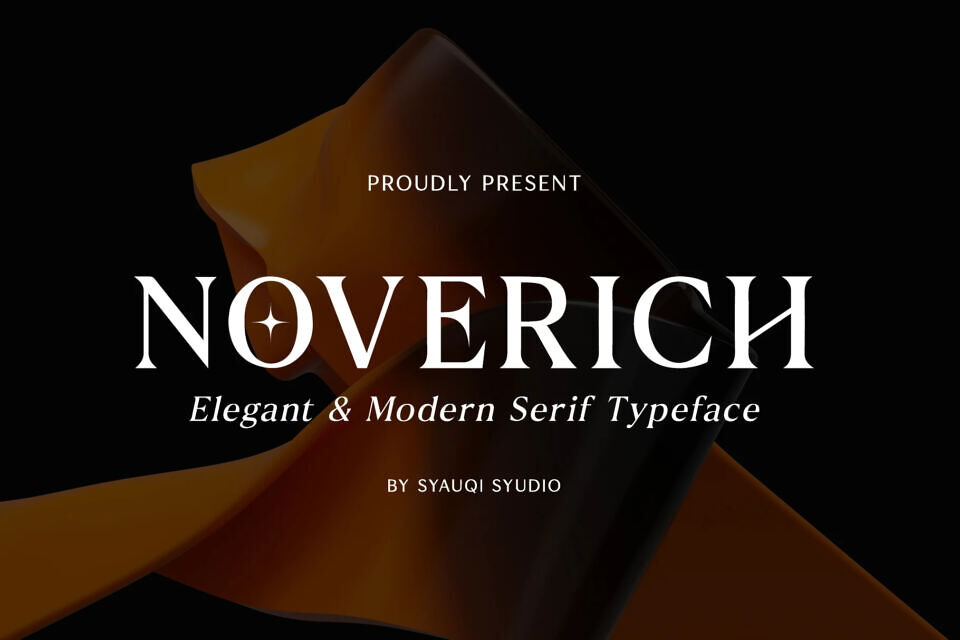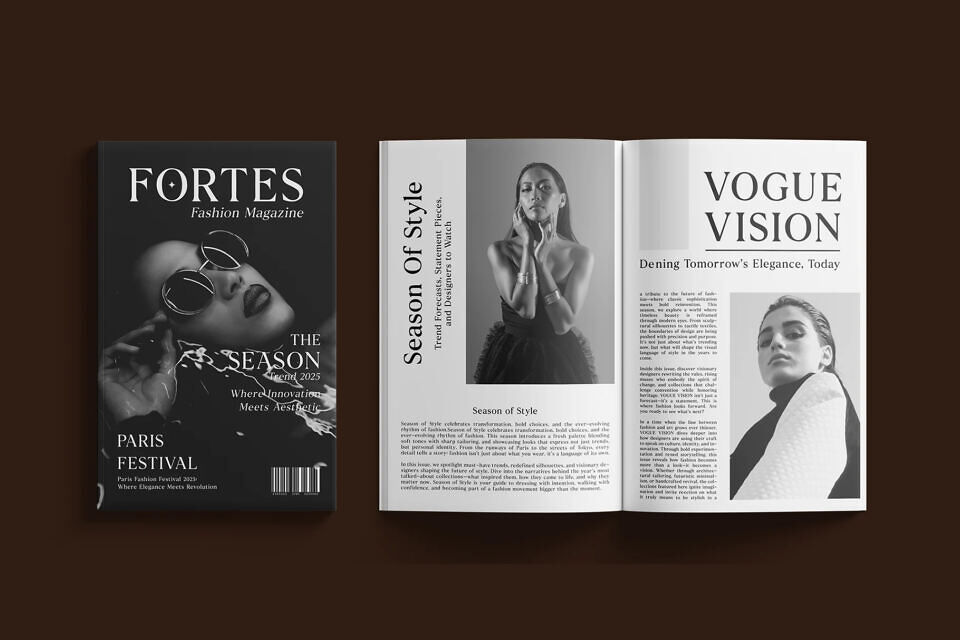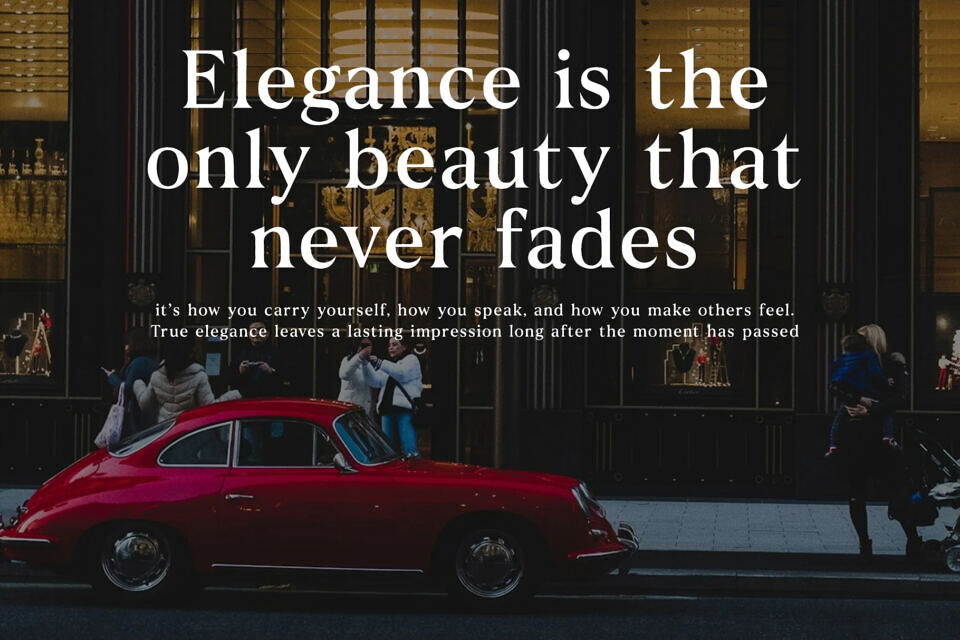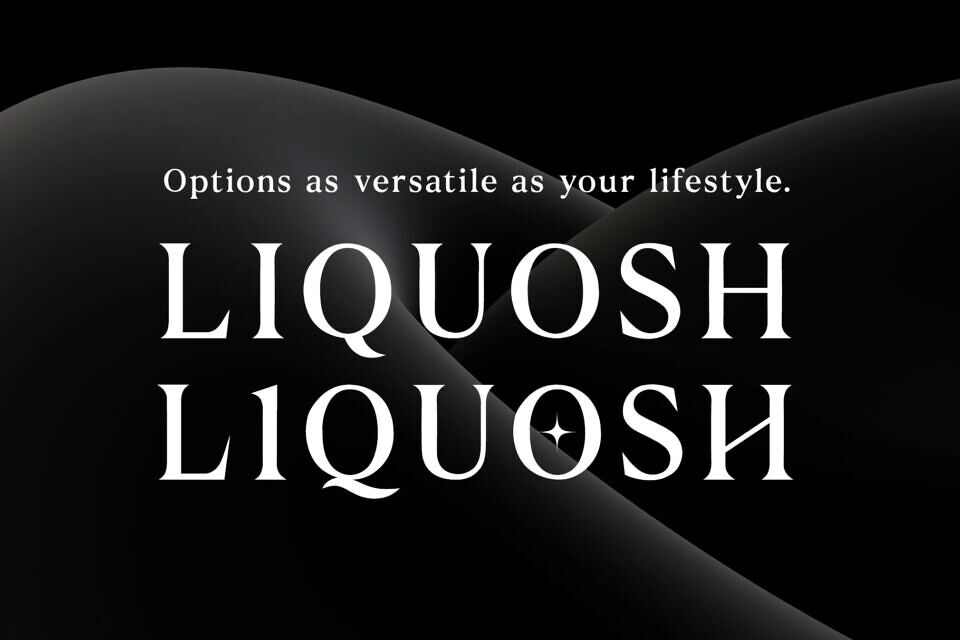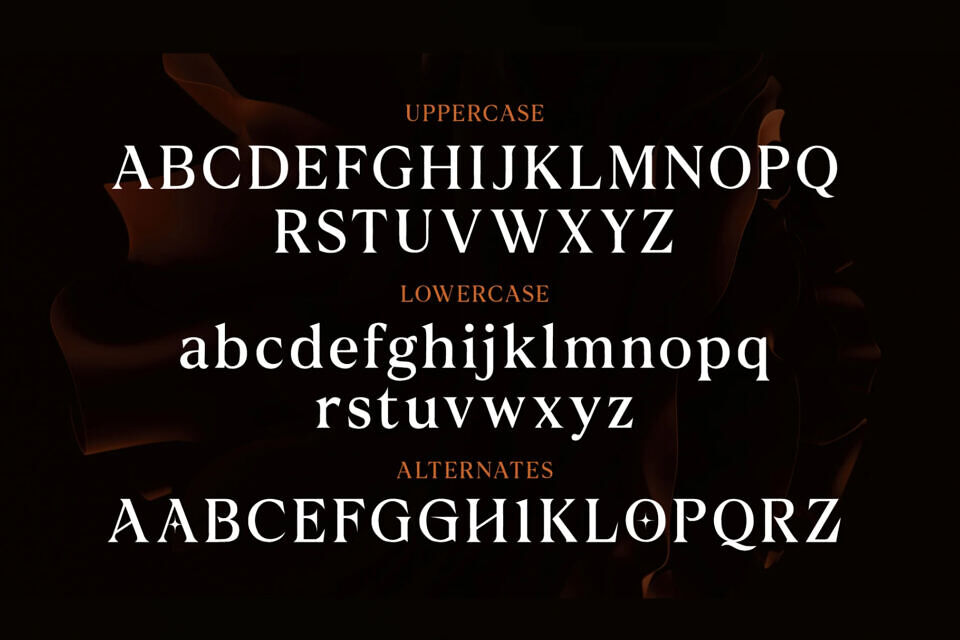
Introducing Noverich, an elegant modern serif typeface that embodies both luxury and clarity. Designed with refined high-contrast strokes, sharp terminals, and graceful curves, Noverich strikes a perfect balance between timeless sophistication and contemporary design trends.
Perfect for editorial headlines, branding projects, fashion magazines, logos, invitations, luxury packaging, and more.